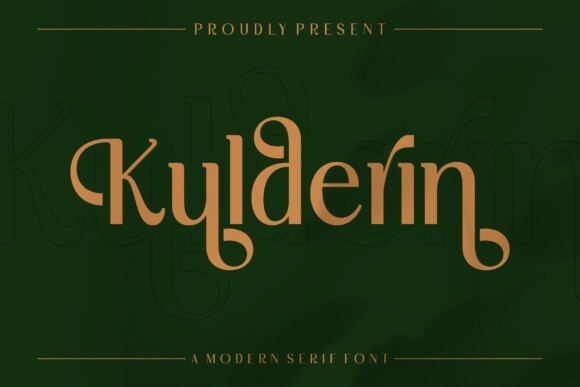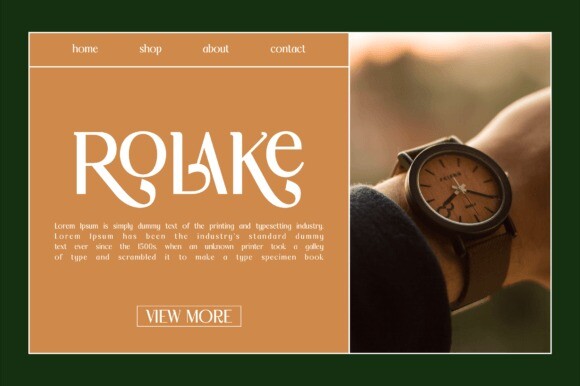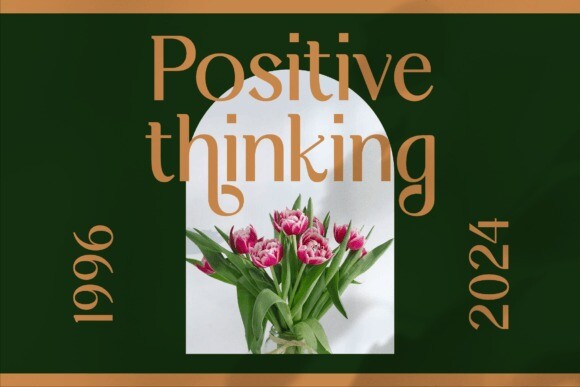
Kulderin Font
Kulderin Font is a modern and stylish display font that has its own unique appearance. This typeface is perfect for an elegant and luxurious logo, fashion brands, magazines, apparel, lettering, quotes, and so much more.